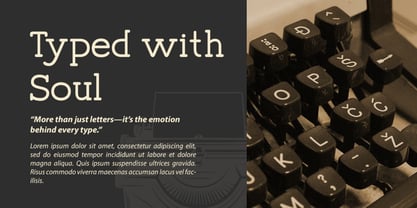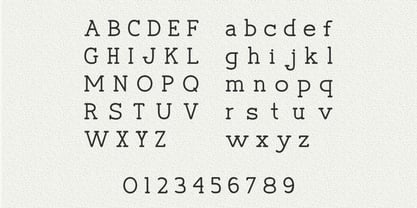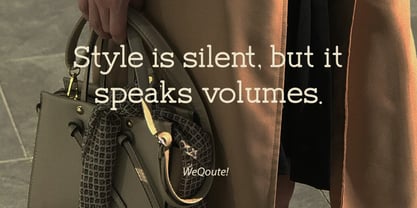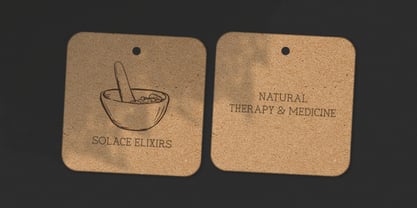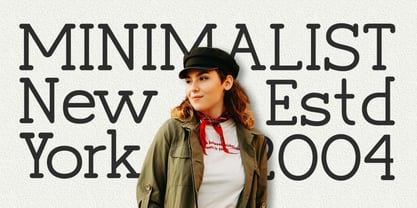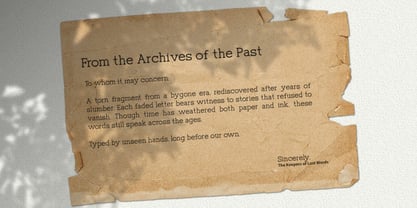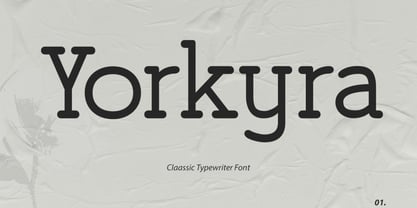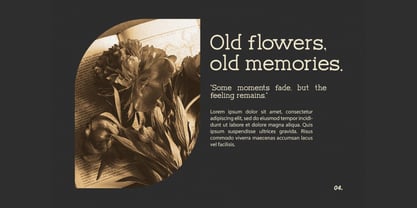
Yorkyra
Yorkyra is a classic typewriter font inspired by traditional mechanical typewriting and printed documents. Its balanced letterforms, subtle imperfections, and clear structure create an authentic vintage writing feel while remaining highly readable. The font delivers a neutral, timeless appearance that works well for both display and body text. Yorkyra brings a nostalgic yet professional tone to modern editorial and creative design.
Suitable for editorial layouts, books, novels, scripts, screenplays, journals, letters, posters, vintage branding, print projects, academic writing, minimalist designs, storytelling visuals, and creative projects that require a classic, readable, and authentic typewriter aesthetic.